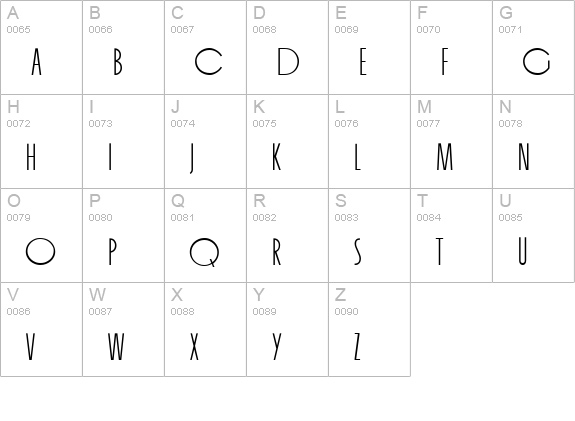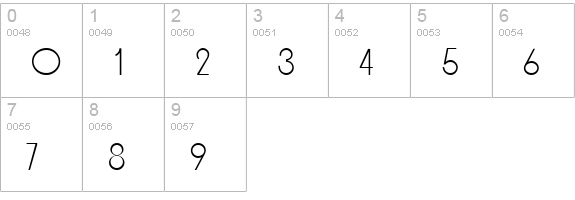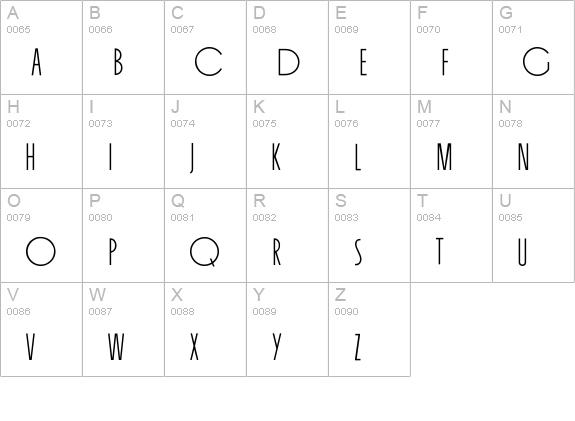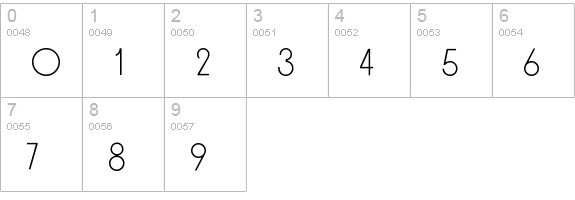
Organda MN is a beautifully crafted font that exudes elegance and sophistication. Its sleek and modern design makes it perfect for a wide range of projects, from branding to editorial design. With its clean lines and versatile style, Organda MN is sure to make your text stand out. The best part? Organda MN is available for free download at FontsMarket.com. Don't miss out on this amazing opportunity to enhance your designs with this stunning typeface. Download Organda MN today and elevate your projects to the next level.